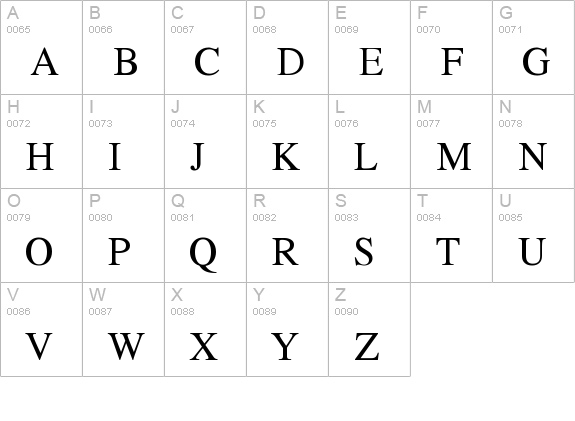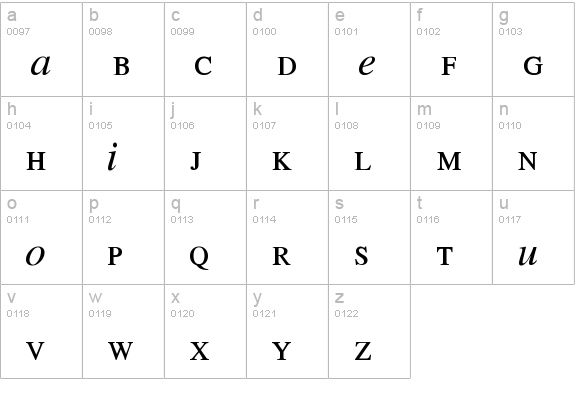
Will&Grace Font Details
Introducing the captivating Will&Grace font, a stylish and versatile typeface that will elevate your designs to new heights. This font exudes a sense of modern sophistication with its clean lines and elegant curves, making it perfect for a wide range of projects. Whether you're designing a logo, creating eye-catching headlines, or crafting beautifully designed invitations, Will&Grace is the perfect choice to add a touch of class and elegance. Its unique and distinct letterforms are bound to make a lasting impression on your audience. But what sets Will&Grace font apart from the rest? It's not just its stunning design, but the fact that it is available to download for free at FontsMarket.com. Yes, you read that right – this remarkable font can be yours without spending a dime! FontsMarket.com is dedicated to bringing you the best quality fonts without breaking the bank, and Will&Grace is no exception. With its bold yet graceful presence, this font is sure to become a staple in your design toolkit. Imagine the possibilities – from creating stunning branding materials for your business to adding a touch of elegance to your personal projects, Will&Grace will effortlessly elevate your designs to a whole new level. So don't miss out on this incredible opportunity to download Will&Grace font for free at FontsMarket.com. Join the countless designers who have already discovered the power and beauty of this font, and let your creativity soar. The possibilities are endless with Will&Grace font – download it today and unlock a world of design possibilities!